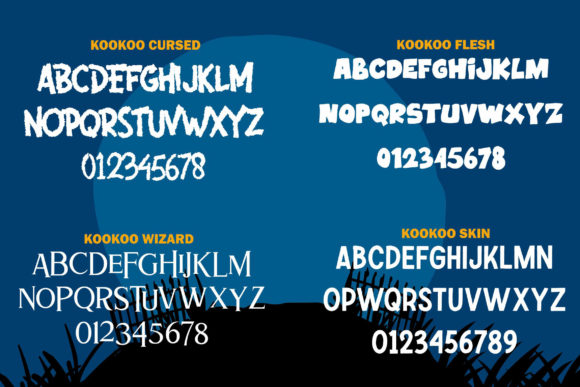
Introduction to Koo Koo Font Font
Fonts play a crucial role in design, and the Koo Koo Font font is a typeface that brings both character and versatility to any project. Whether you’re working on a branding project, a website, or a print design, the Koo Koo Font font offers a unique style that can elevate your work.
Koo Koo is an incredibly cute and unique display font.
Add it to your favorite Halloween themed ideas and notice how it makes them stand out .
Key Features of Koo Koo Font Font
Why Choose Koo Koo Font Font?
The Koo Koo Font font is more than just a typeface – it’s a design tool that helps you communicate your message with style and clarity. Its unique character set and versatile design make it suitable for a wide range of applications, from elegant invitations to bold headlines.
With its carefully crafted letterforms and balanced proportions, the Koo Koo Font font ensures readability and visual appeal across all mediums.
What makes Koo Koo Font font special?
The Koo Koo Font font stands out with its unique design, exceptional readability, and versatility across various design applications.